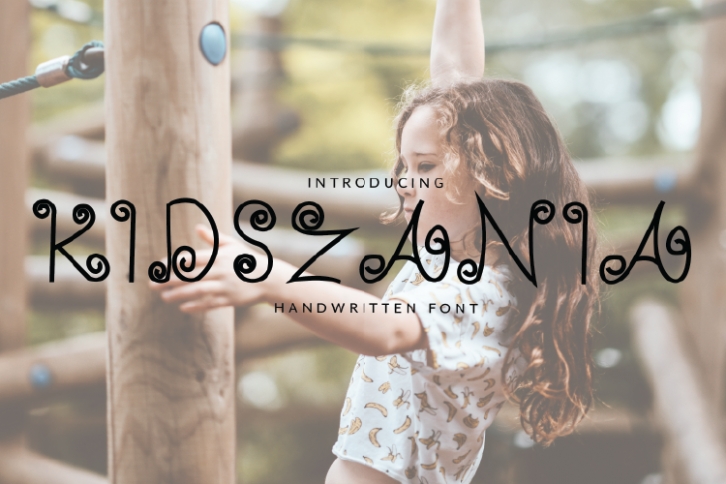
Kidszania is a trendy and unique font with an authentic style. It was designed by NirmalaGraphics and it's a great choice for creative people who need such a font. It was released on January 2, 2020 and the file size is 20.52 MB. Kidszania will add an organic vibe to any design idea!